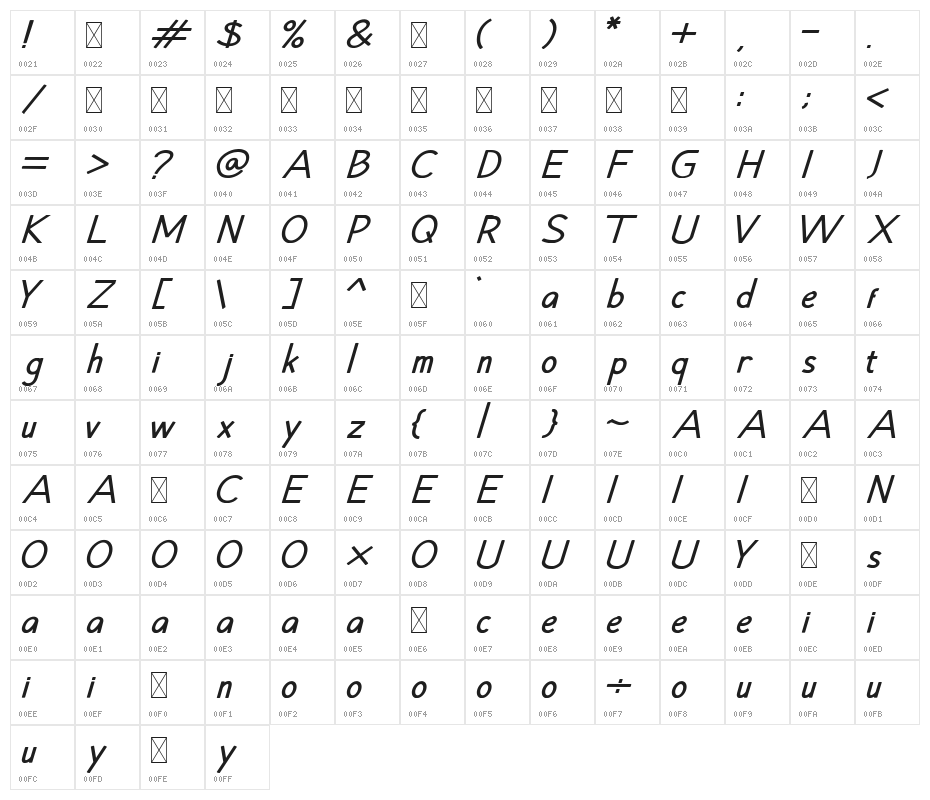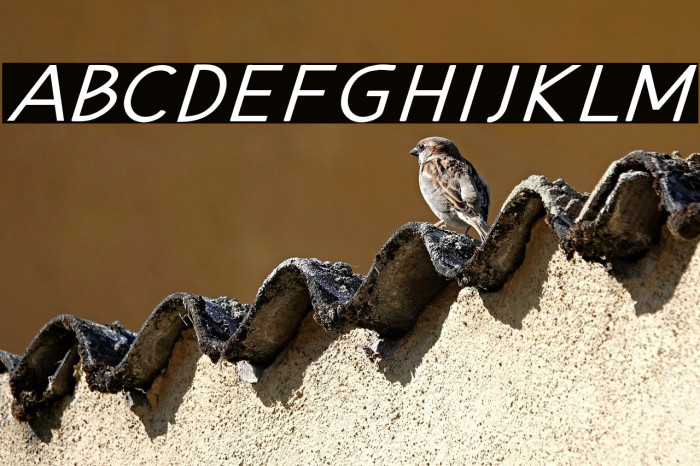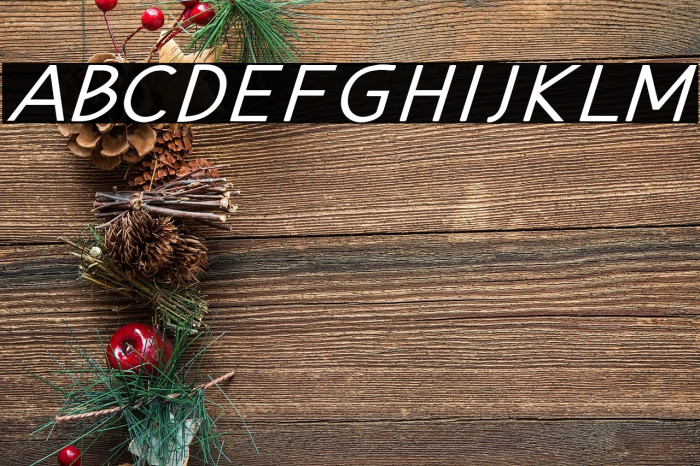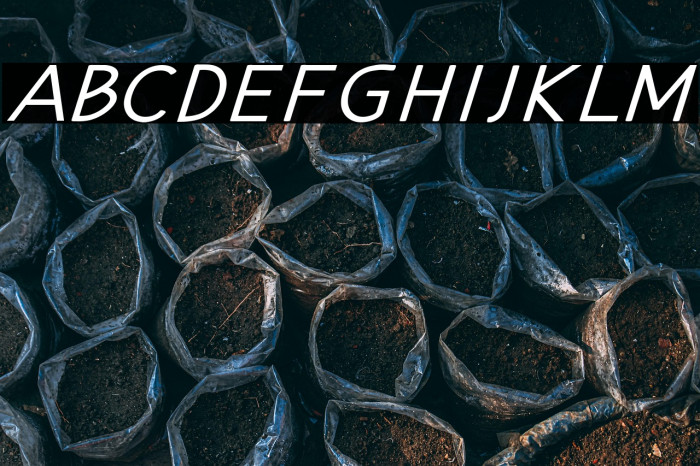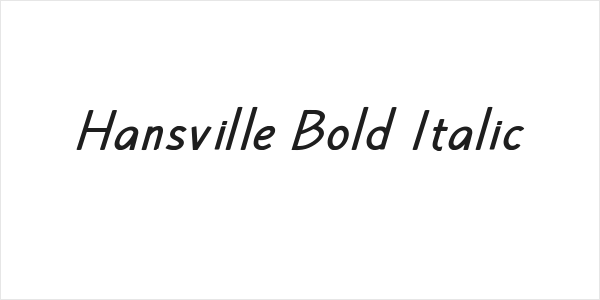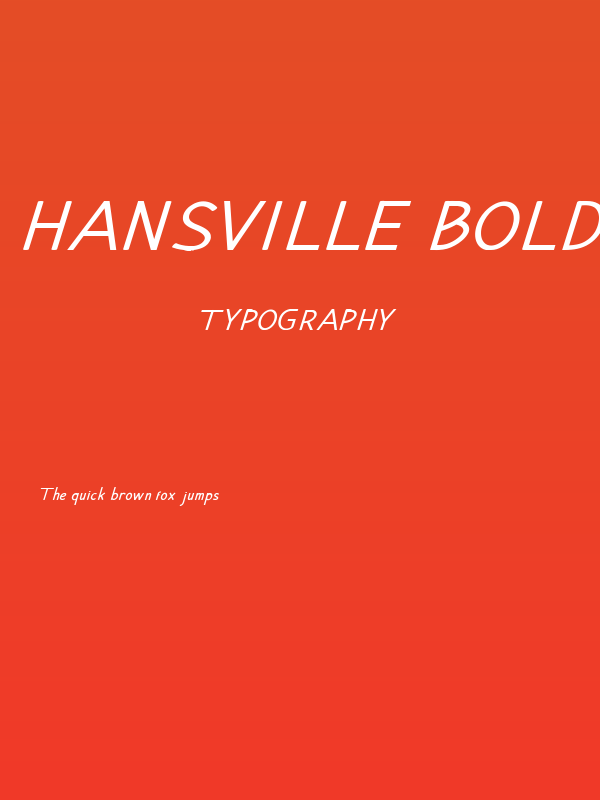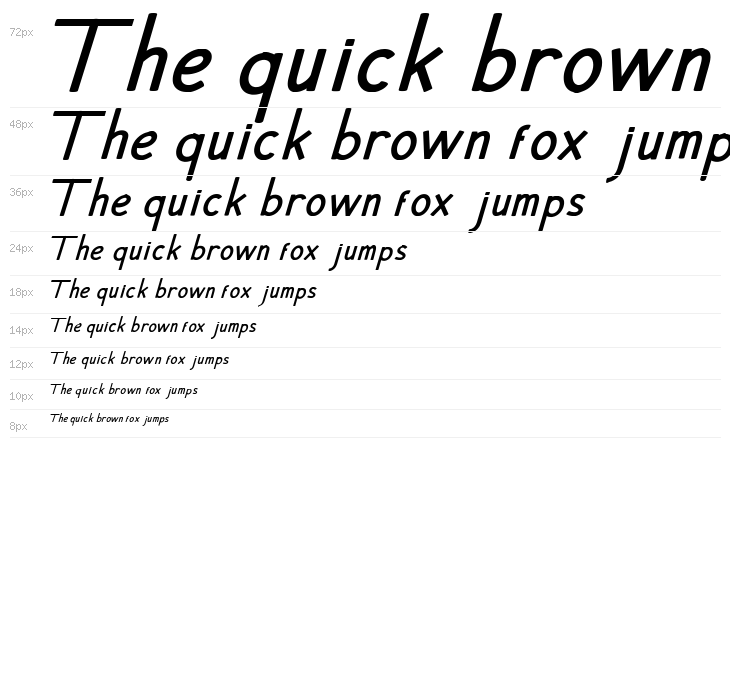
Hansville Bold Italic Font
Hansville Bold Italic Description
This font exhibits a bold and italicized style, characterized by its slanted and robust letterforms. The uppercase letters are slightly taller than the lowercase, maintaining a consistent slant that adds a dynamic and forward-moving appearance. The strokes are thick, providing a strong visual impact, while the overall design remains clean and legible. The lowercase letters mirror the uppercase in style, with rounded edges that soften the boldness. The numbers and special characters are designed to match the overall aesthetic, ensuring uniformity across all characters. This font is ideal for making statements with its bold presence and italicized flair.